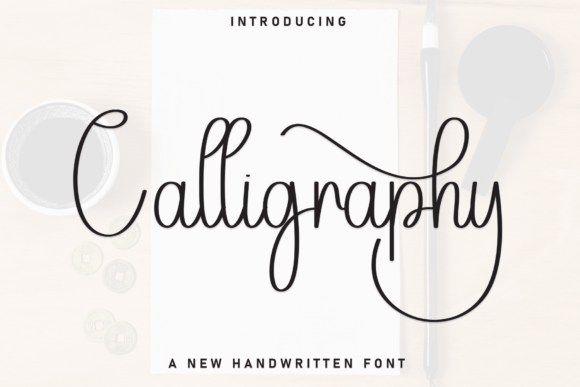
The Art of Elegant Typography: Unlocking the Power of Calligraphy Font
As a designer, have you ever felt the thrill of creating something truly special, like the moment a beautiful wedding invitation comes together? Perhaps it’s the way the words seem to dance across the page, or the subtle elegance of the script that makes it stand out from the crowd. Whatever the reason, we’ve all been there – and it’s exactly what makes Calligraphy Font so valuable to designers.
Calligraphy Font is a stylish script font that embodies the essence of hand-drawn elegance, with its fluid curves and carefully crafted letterforms. Whether you’re working on a logo, invitation, or social media graphic, this font delivers both versatility and visual appeal, adding a refined and sophisticated touch to any design.
Key Features of Calligraphy Font
• Unique Characteristics: Calligraphy Font is designed with intricate details, ornate flourishes, and elegant curves, making it perfect for creating beautiful and sophisticated designs.
• Font Style: This font is available in both uppercase and lowercase letters, with multiple font styles including Regular, Italic, Bold, and Bold Italic.
Designer Review: Calligraphy Font
Overall, I think the Calligraphy Font is a beautiful addition to any design project. ✨ It’s perfect for creating a sense of elegance and sophistication, whether it’s for a wedding invitation, a menu, or a logo. The flowing lines and decorative flourishes add a touch of whimsy and romance to any text.
• ✨ Beautifully crafted letters with intricate details
• ✨ Perfect for creating a sense of luxury and sophistication
• ✨ Works well for invitations, menus, and other high-end designs
• ⚠️ Limited font sizes: the font may become too ornate and difficult to read at smaller sizes
• ⚠️ Limited character set: the font may not support all languages or special characters
• ⚠️ Can be overwhelming: the font’s decorative elements may be too much for some designs
Overall, I would recommend the Calligraphy Font for designers who want to add a touch of elegance and sophistication to their projects. However, it’s essential to use it judiciously and balance its ornate elements with more straightforward text to avoid overwhelming the viewer.
Practical Application Guide: Calligraphy Font
Tips for Getting the Most Out of Calligraphy Font
For best results, use calligraphy font in bold, italic, or condensed styles to add emphasis and visual interest. Experiment with different font sizes and colors to create a unique look. Consider combining calligraphy font with other design elements, such as illustrations or graphics, to add depth and texture to your design.
Calligraphy font is ideal for:
• Wedding invitations and stationery
• Birth announcements and baby showers
• Special occasion cards and gifts
• Branding and logo design